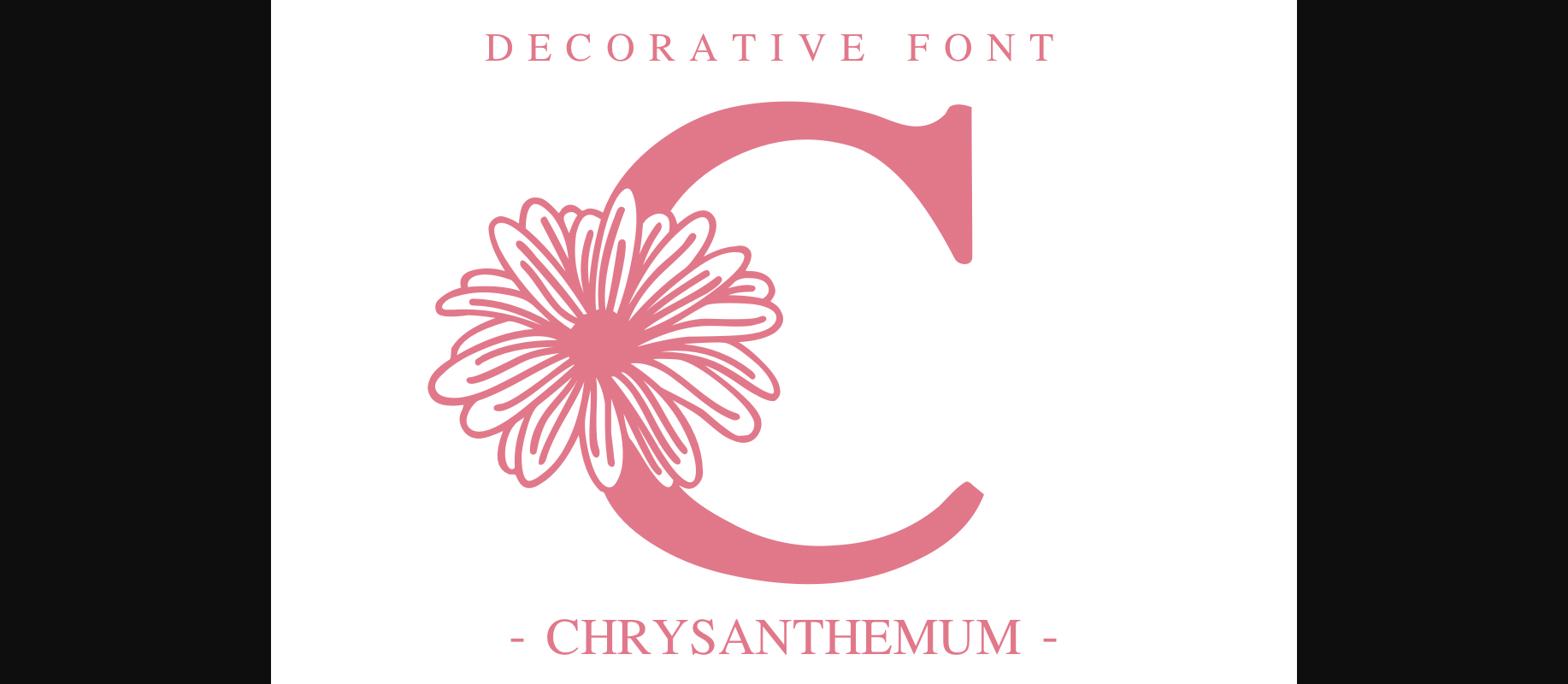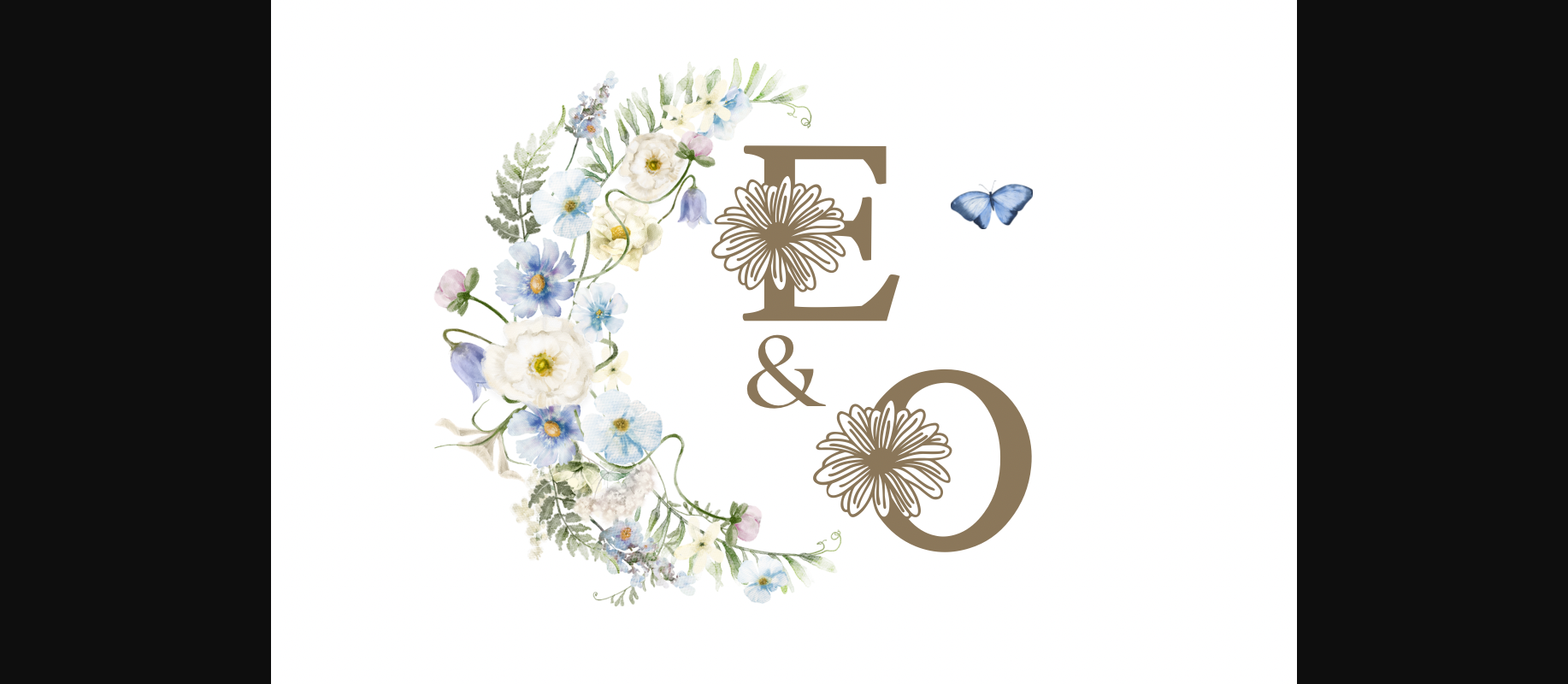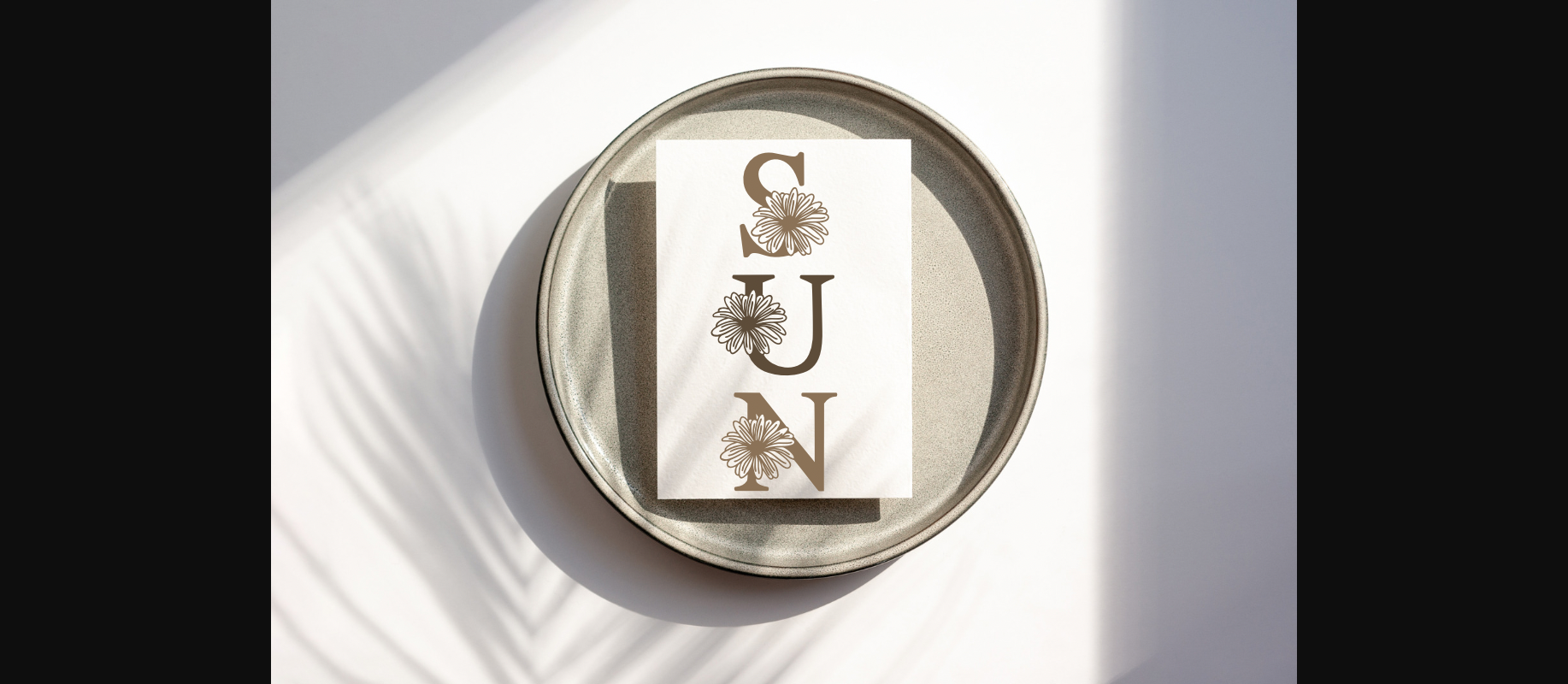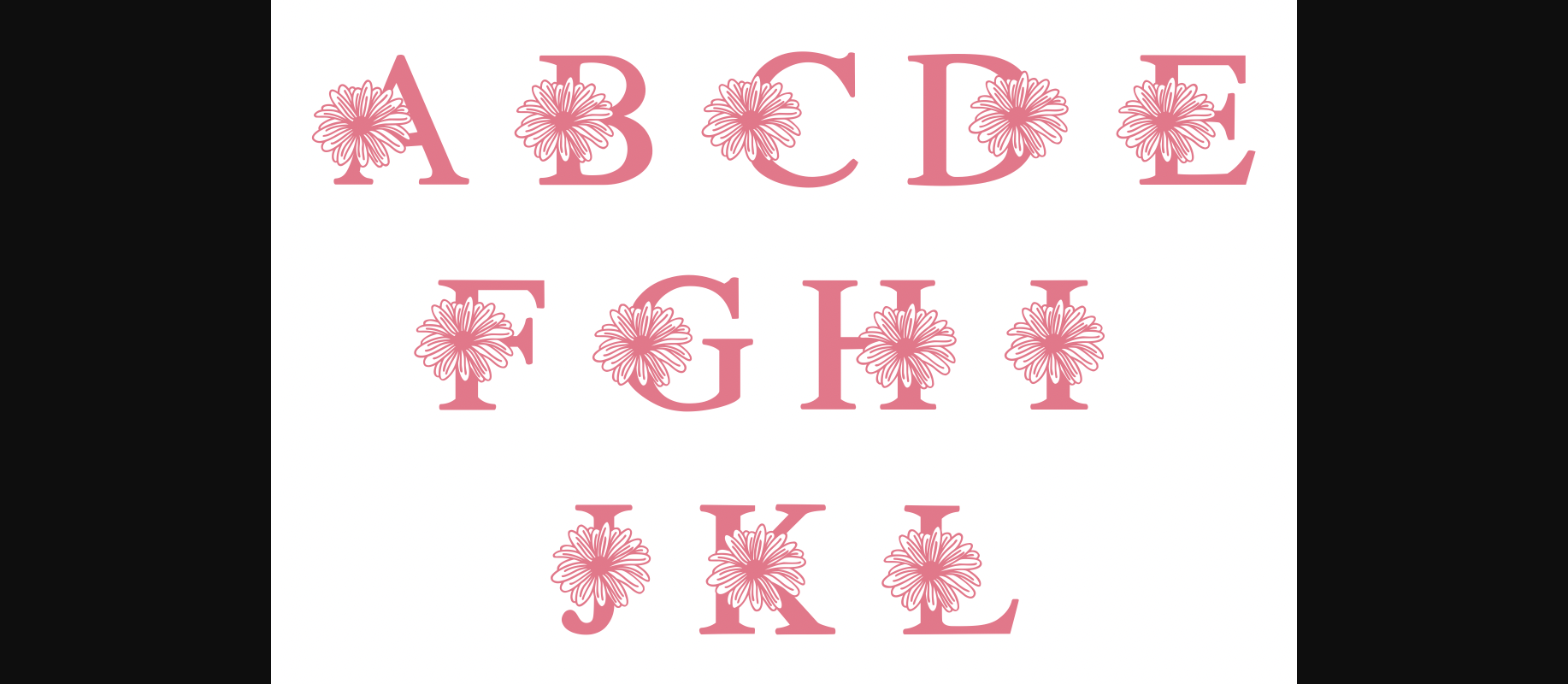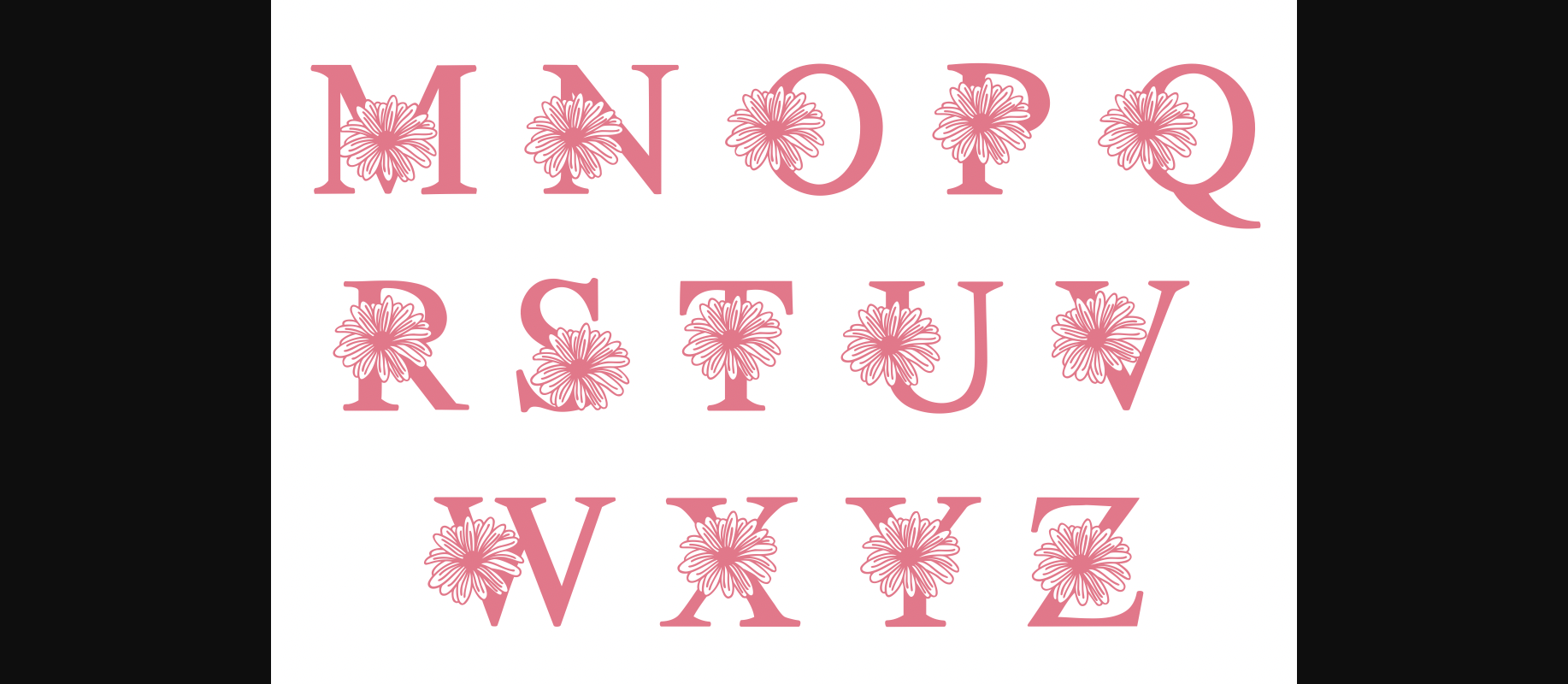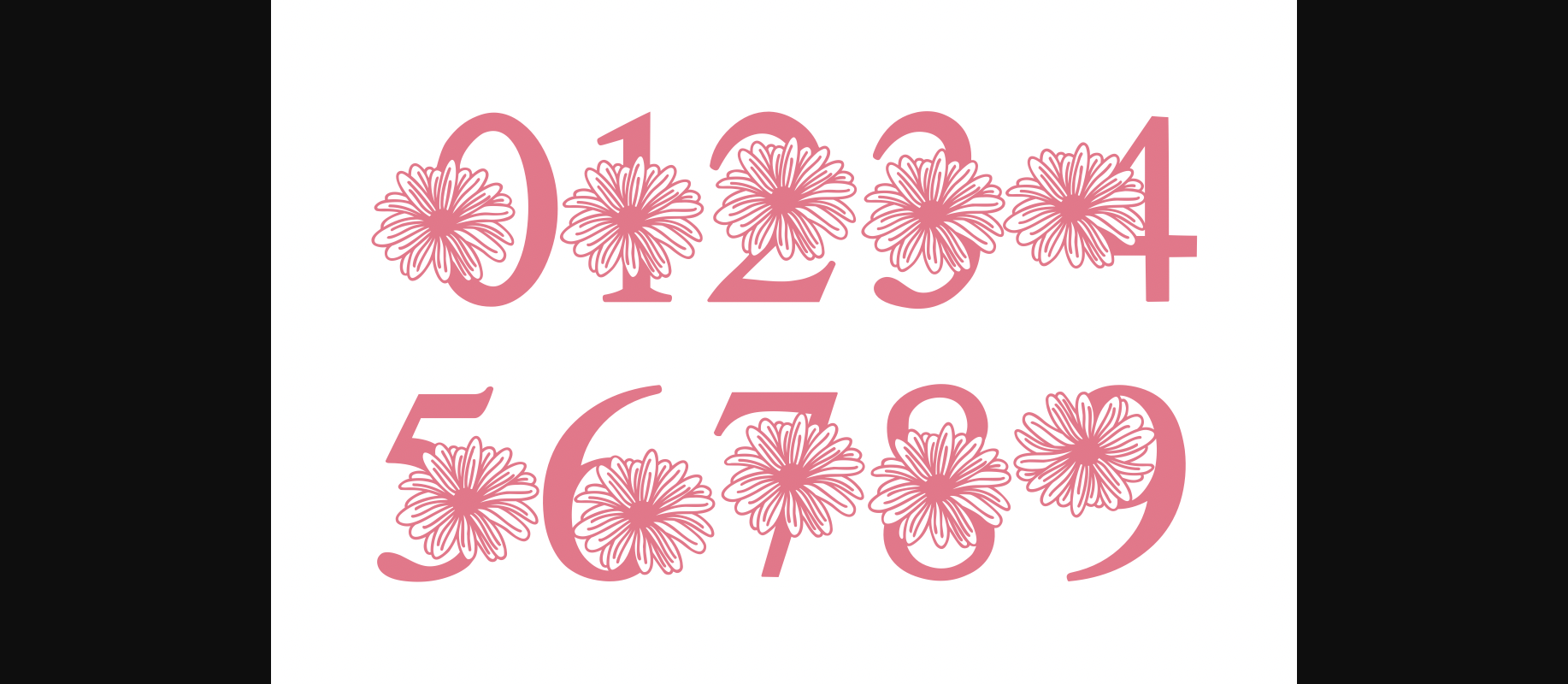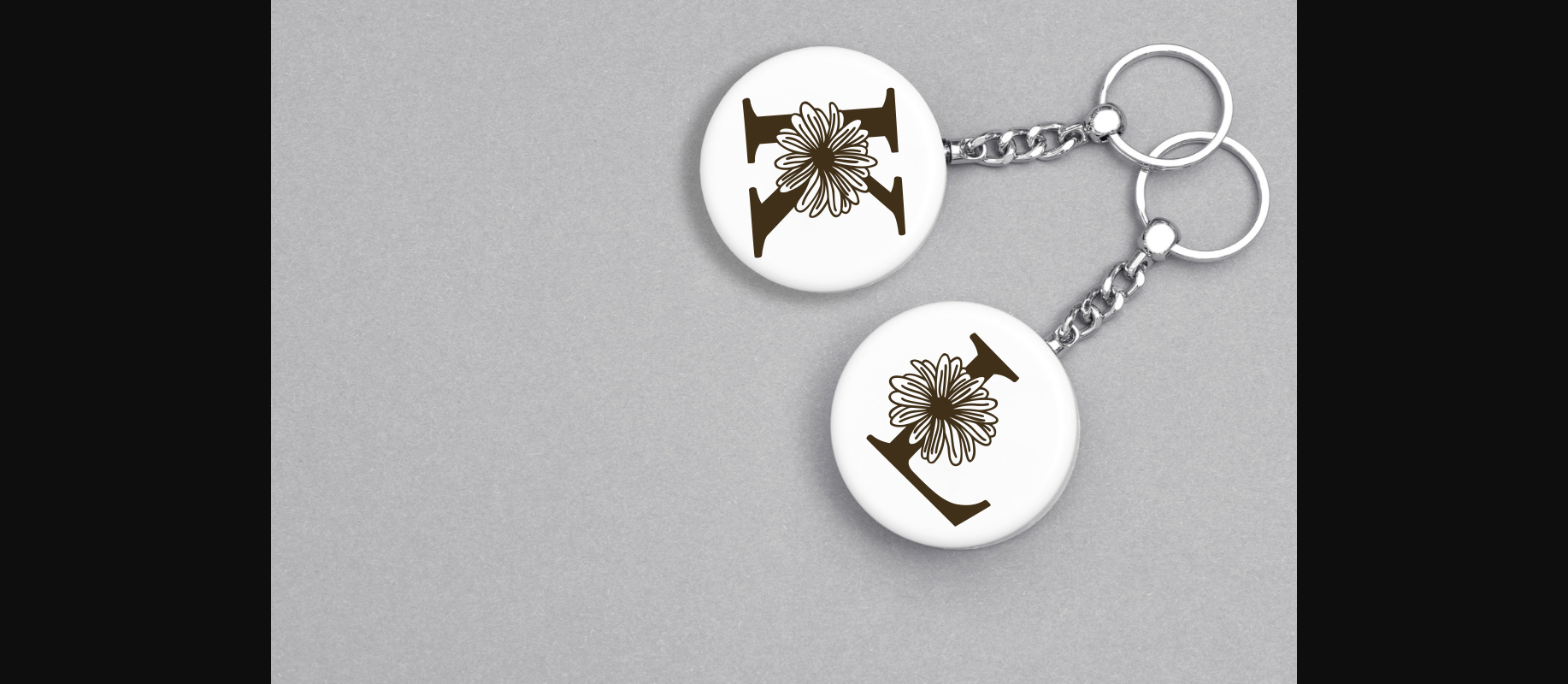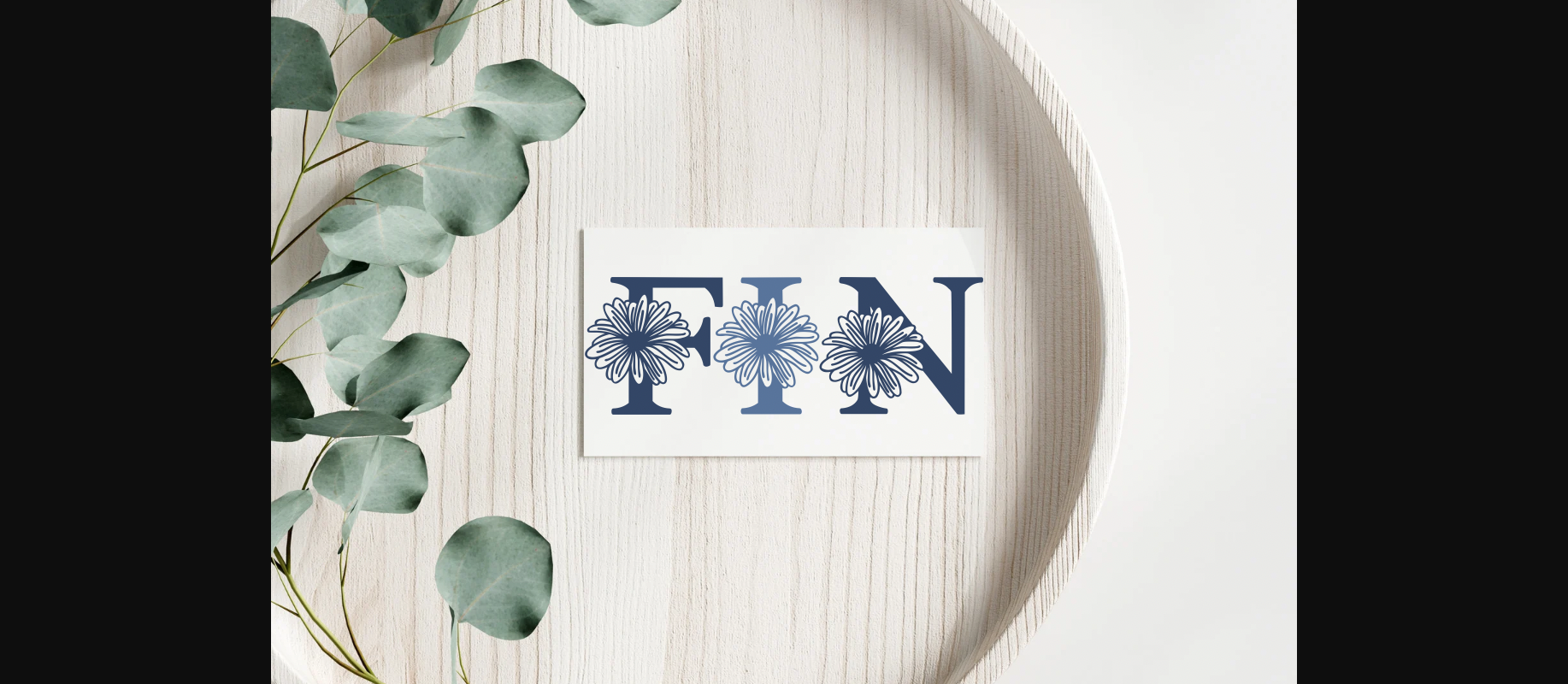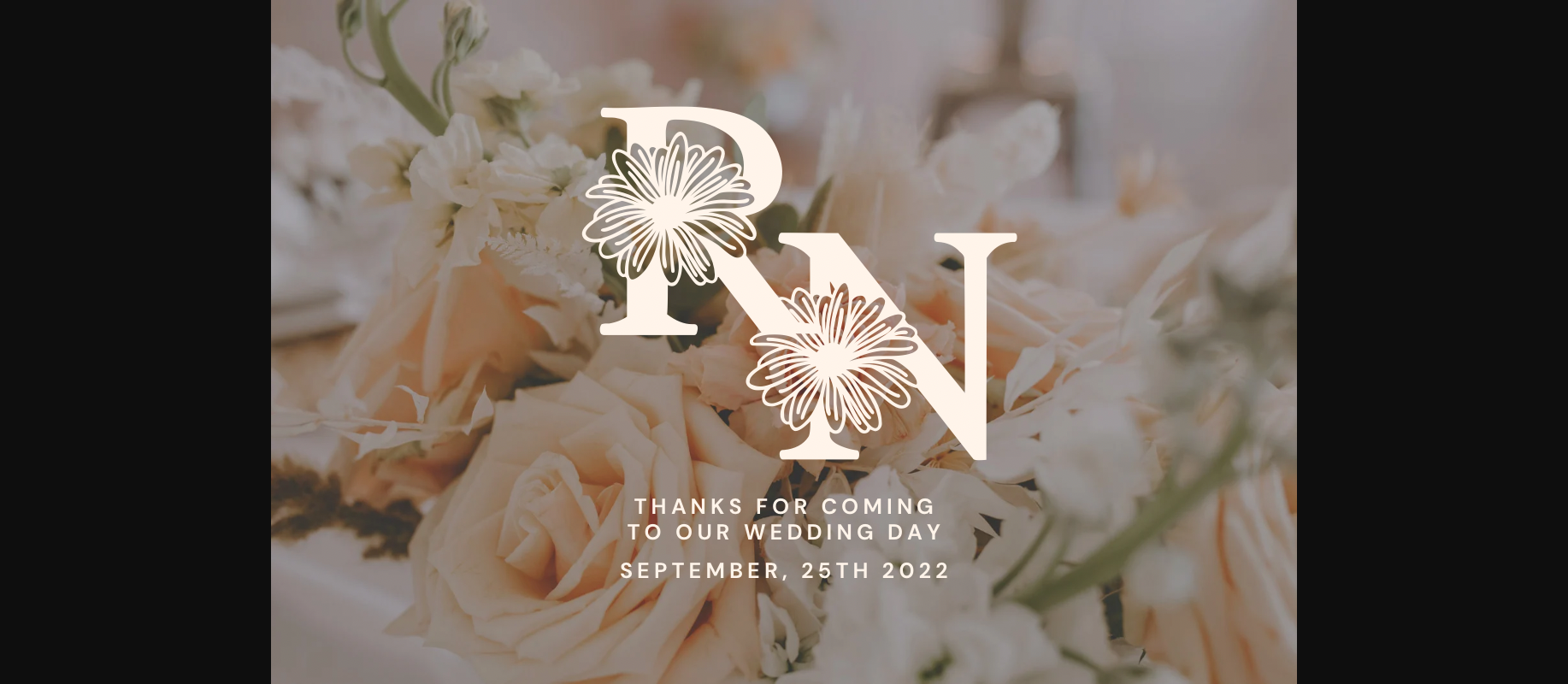
Chrysanthemum Font
About Chrysanthemum Font
Chrysanthemum is a decorative font adorned with delicate chrysanthemum flowers embellishing each letter. Perfect for adding a touch of floral elegance to your designs, this font is both charming and versatile. Ideal for projects requiring a playful yet sophisticated aesthetic, Chrysanthemum is sure to captivate and enchant your audience with its whimsical beauty.